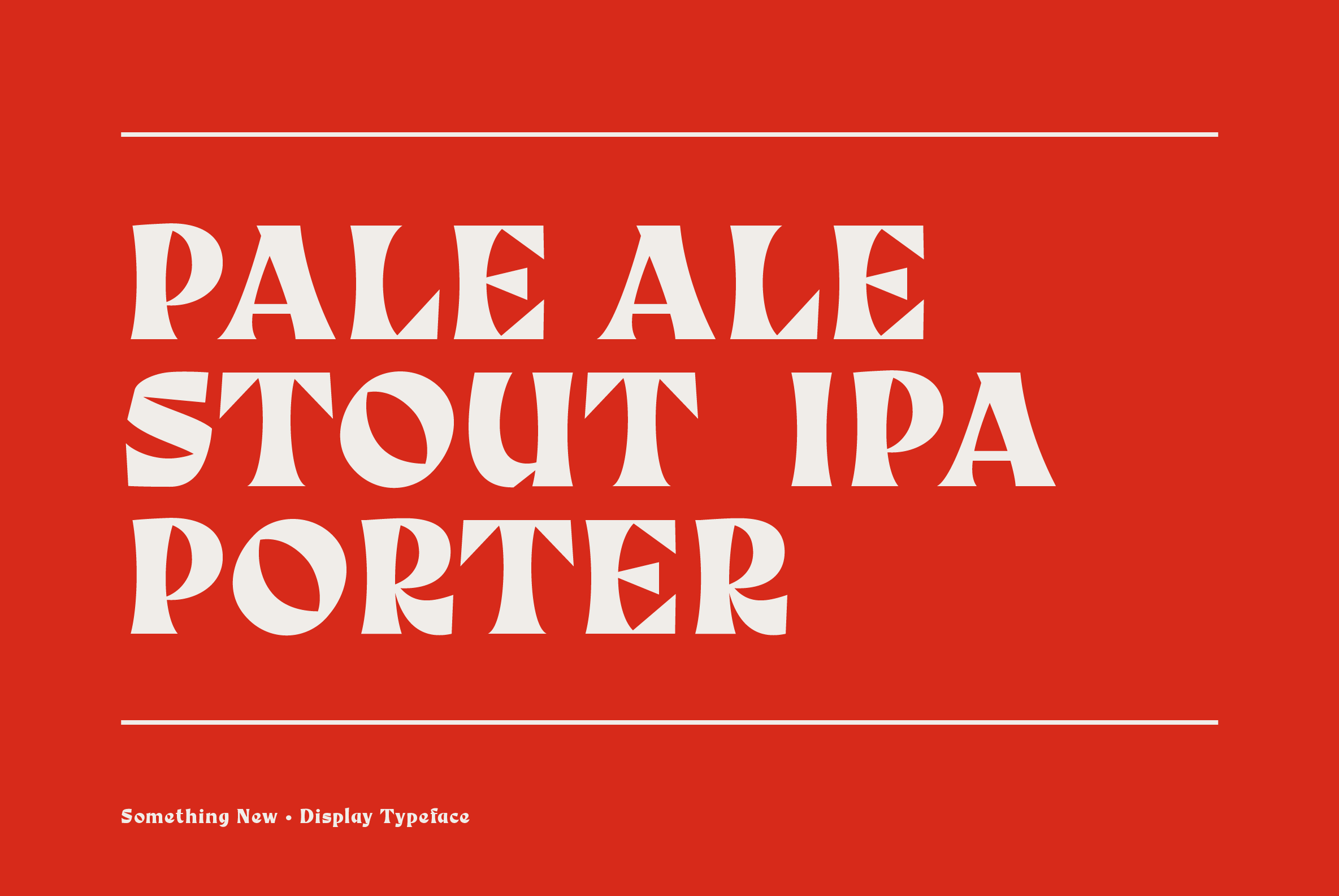
Something New, a serif blackletter, has been designed with logo designers and typographers firmly in mind. This feature-packed display font is a perfect addition to your design arsenal, ready for your next logotype, heavy heading or beer label.
“A modern mix of serif and blackletter with a touch of vintage”